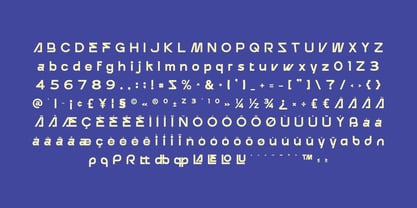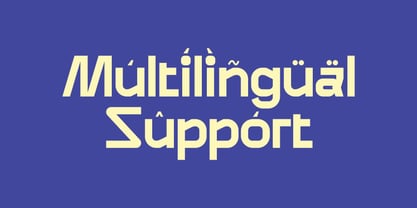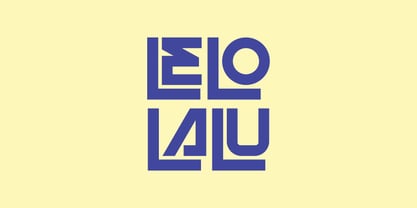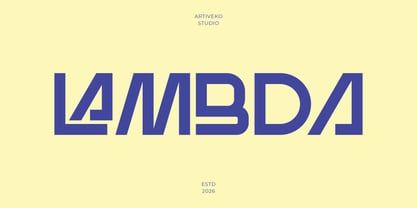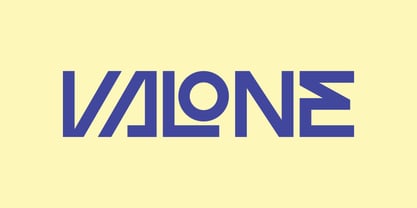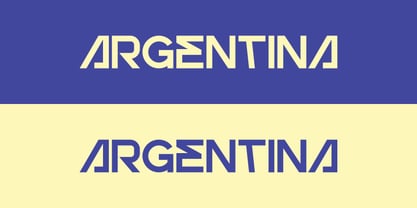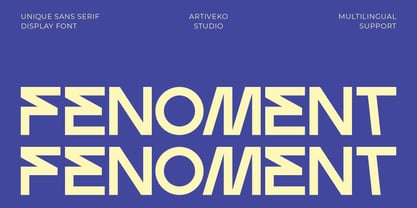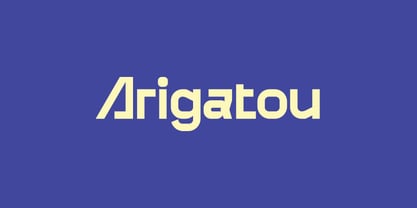
Fenoment
by Artiveko
The Fenoment Font Family was designed by Iwan Alwan and published by Artiveko. Fenoment contains 2 styles and family package options. More about this family
Fenoment is a distinctive display sans serif typeface crafted to transcend conventional design boundaries with its bold personality and modern flair. Featuring expressive letterforms and a creative structure, Fenoment provides a fresh visual identity that captures attention instantly. Ideal for branding, logos, posters, packaging, social media graphics, editorial layouts, and creative campaigns, Fenoment empowers designers to create memorable visuals with a strong typographic presence. Its unique shapes ensure originality while preserving readability in display applications. Whether utilized for innovative brands, artistic projects, or contemporary marketing visuals, Fenoment infuses confidence, uniqueness, and creative energy into every design. Fenoment is not just a font — it’s a declaration of originality and bold design.
Designers: Iwan Alwan
Foundry: Artiveko